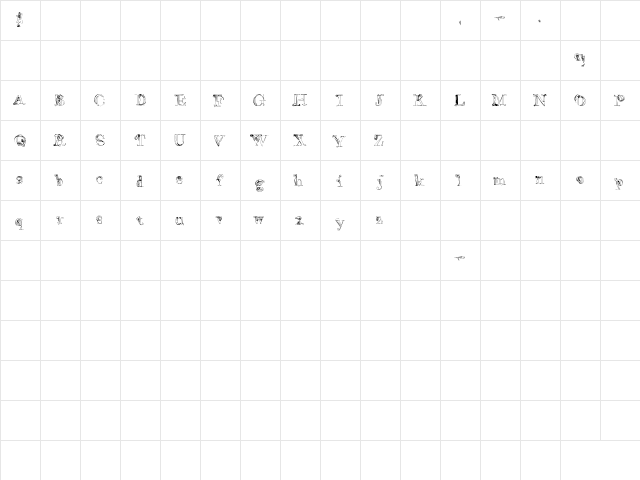
False Advertising Regular
Design Context for False Advertising Typeface
False Advertising is a composed and adaptable typeface that performs quietly and consistently across a wide range of design contexts.